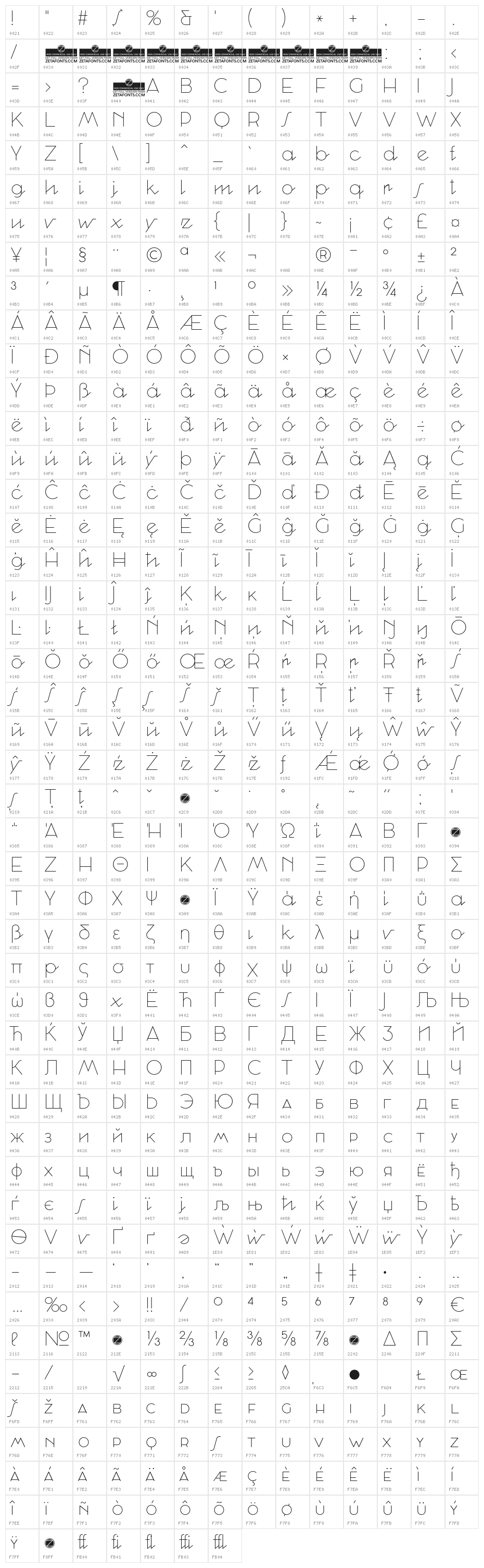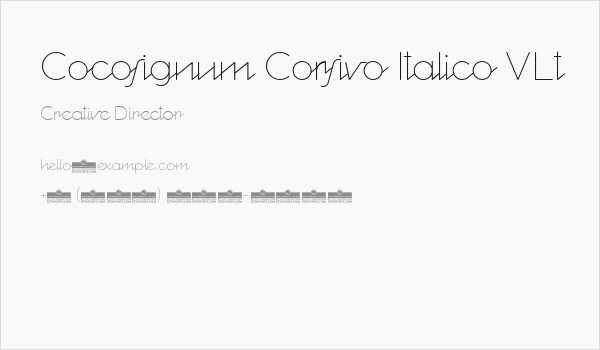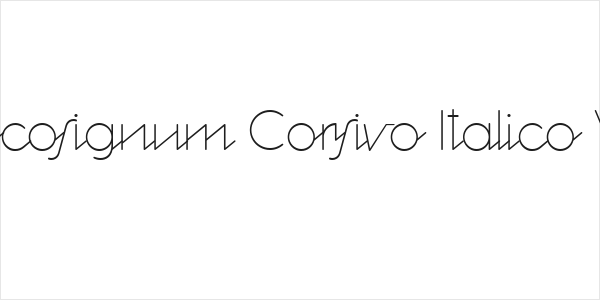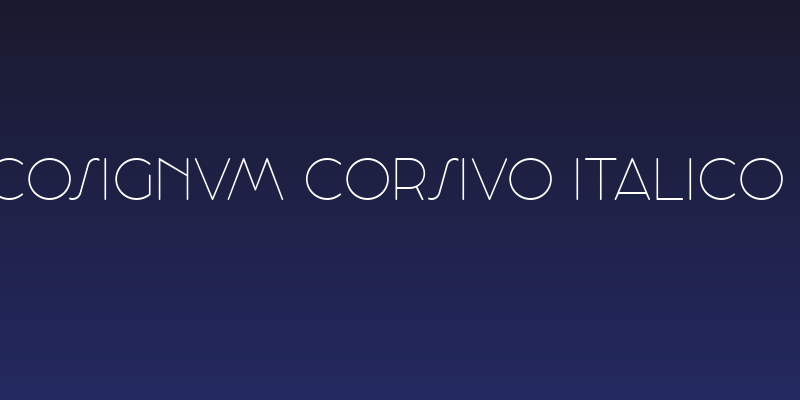
Cocosignum Corsivo Italico ULt Font
Cocosignum Corsivo Italico ULt Description
This font features a sleek, modern design with a cursive flair. The uppercase and lowercase letters are characterized by thin, elegant lines that give it a sophisticated and airy appearance. The strokes are consistent in width, providing a uniform look across all characters. The font includes a full set of uppercase and lowercase letters, numbers, and a variety of special characters. Its minimalist style makes it versatile for various design applications, while the cursive elements add a touch of elegance and fluidity. The overall aesthetic is clean and contemporary, making it suitable for modern branding and design projects.
| Use Case | Logos, Invitations, Editorial design |
| Proposed Projects | Ideal for modern branding, elegant invitations, minimalist logos, and stylish editorial design. |